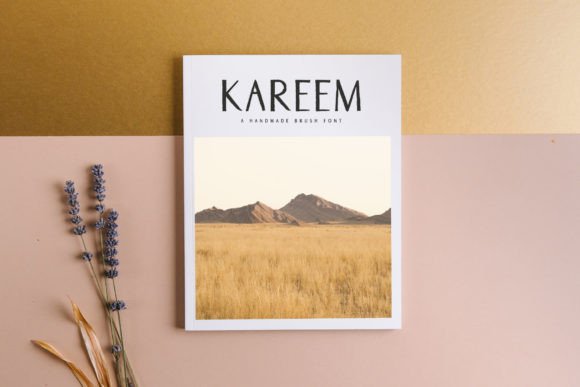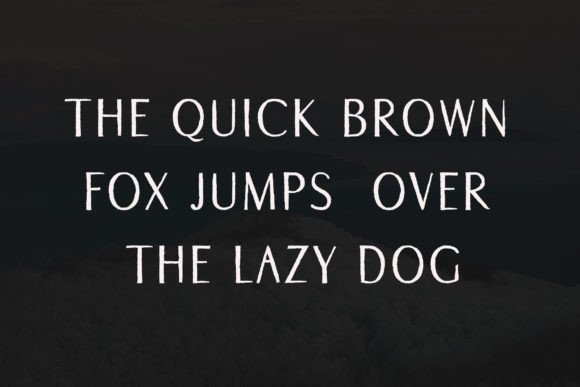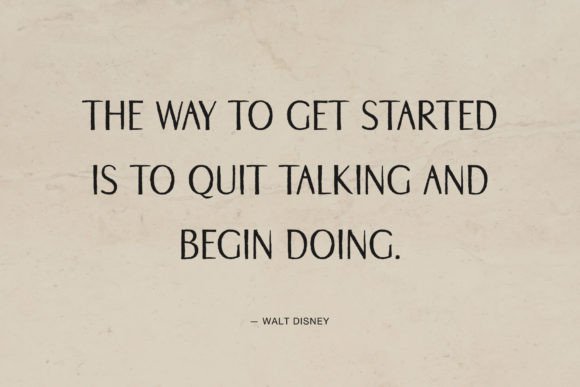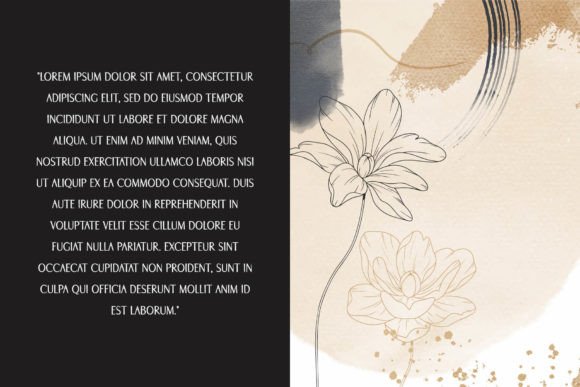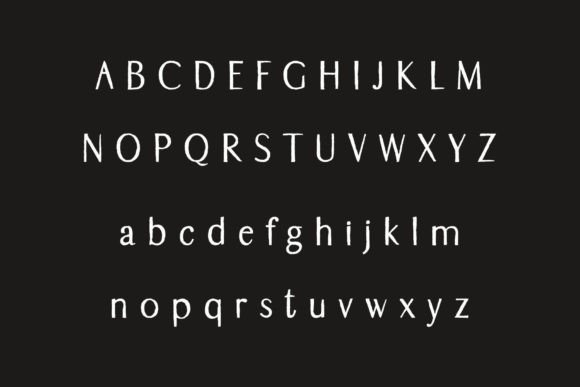
Introduction to Kareem Font Font
Fonts play a crucial role in design, and the Kareem Font font is a typeface that brings both character and versatility to any project. Whether you’re working on a branding project, a website, or a print design, the Kareem Font font offers a unique style that can elevate your work.
Kareem is a modern and charming handwritten font that has the potential to elevate any of the upcoming design projects you wish to create.
Kareem will be perfect for packaging, presentations, logos, headlines, lettering, posters, branding, quotes, titles, magazine headings, web layouts, advertising, invitations, packaging design, books, and nearly any creative design .
Key Features of Kareem Font Font
Why Choose Kareem Font Font?
The Kareem Font font is more than just a typeface – it’s a design tool that helps you communicate your message with style and clarity. Its unique character set and versatile design make it suitable for a wide range of applications, from elegant invitations to bold headlines.
With its carefully crafted letterforms and balanced proportions, the Kareem Font font ensures readability and visual appeal across all mediums.
What makes Kareem Font font special?
The Kareem Font font stands out with its unique design, exceptional readability, and versatility across various design applications.